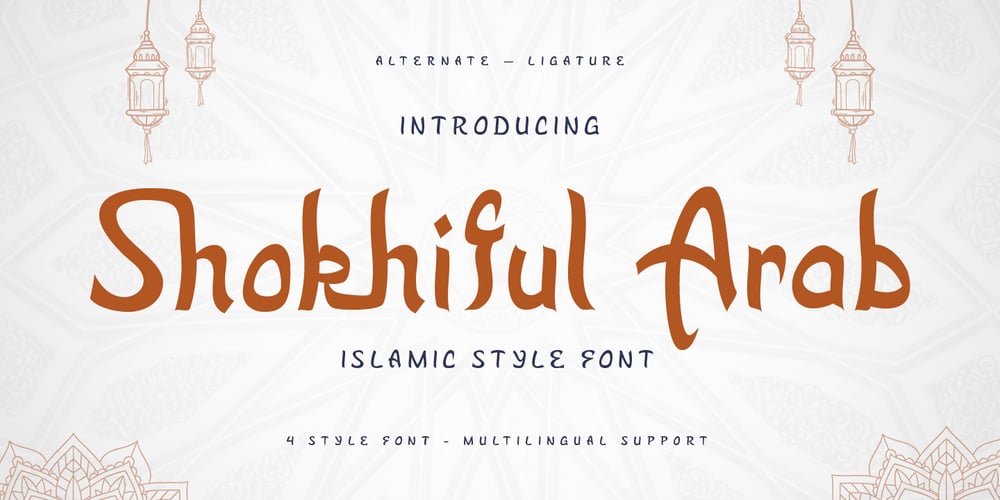
Shokhiful Arab
Shokhiful Arab font
Shokhiful Arab Font Family was designed by Rozikan and published by Twinletter. Shokhiful Arab contains 4 styles and family package options. Bring the beauty of Arabic script art into your designs with Shokhiful, an Arabic-style font that exudes classic elegance and beauty. Designed with meticulous detail, each letter in Shokhiful depicts the unique art of Arabic calligraphy, bringing an exotic touch to your design projects.Shokhiful offers the ability to convey messages with beautiful typography inspired by the traditions of Arabic script art. With flowing lines and subtle artistic elements, this font opens the door to a world of design that showcases the richness of Arab culture.Shokhiful’s strengths lie in the beauty of its proportions and its ability to integrate elegantly in a variety of design contexts. From wedding invitations to promotional materials with a Middle Eastern twist, Shokhiful allows designers to dive into the elegance of Arabic calligraphic heritage in every project.With Shokhiful, bring an exotic and classic feel to your design works. Let each letter be an expression of art and calligraphic skill, making your designs speak the language of unparalleled Arabic beauty.